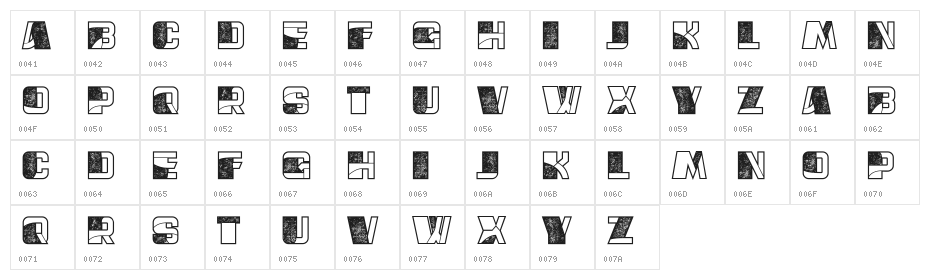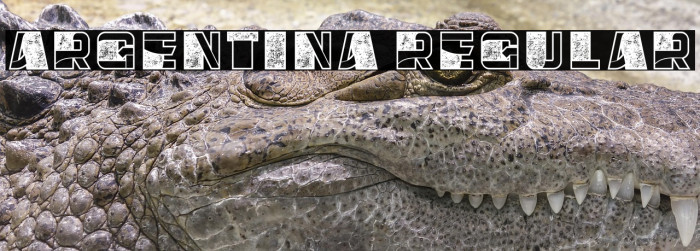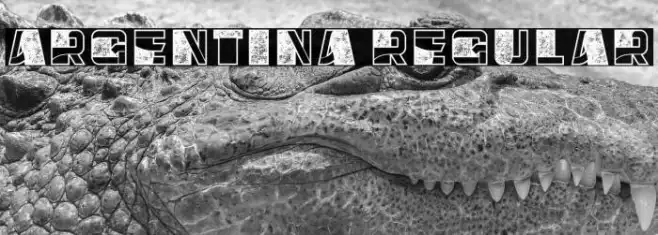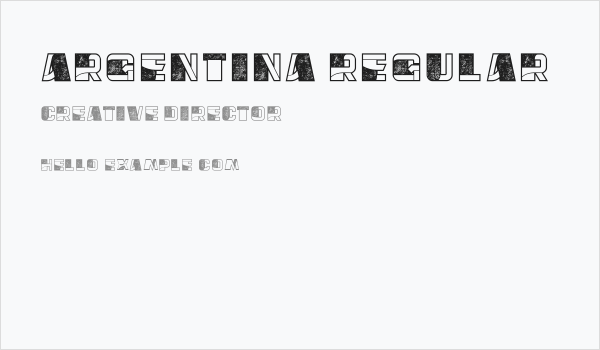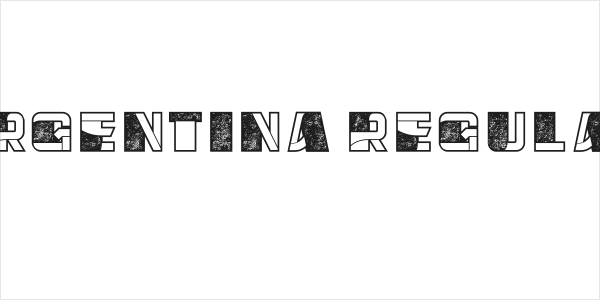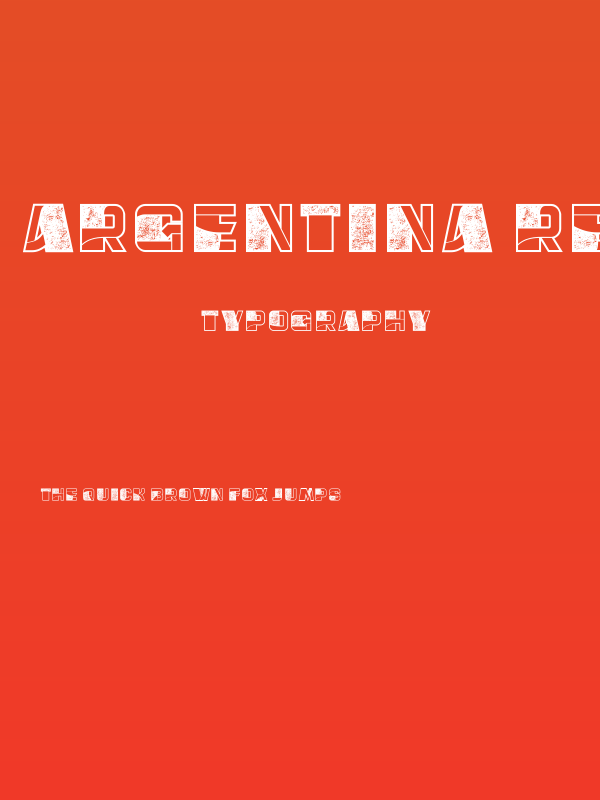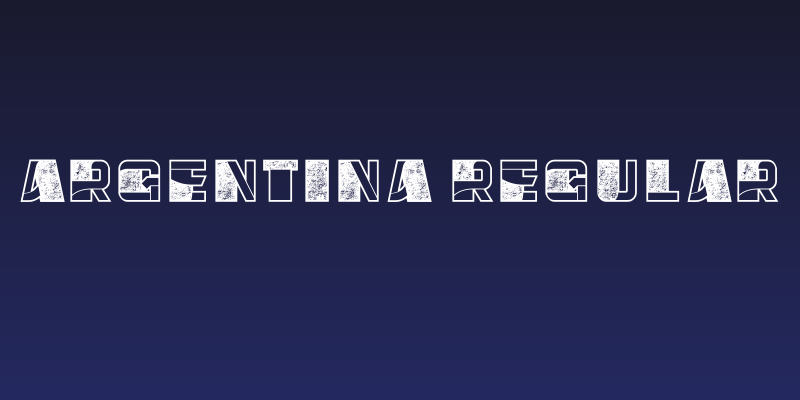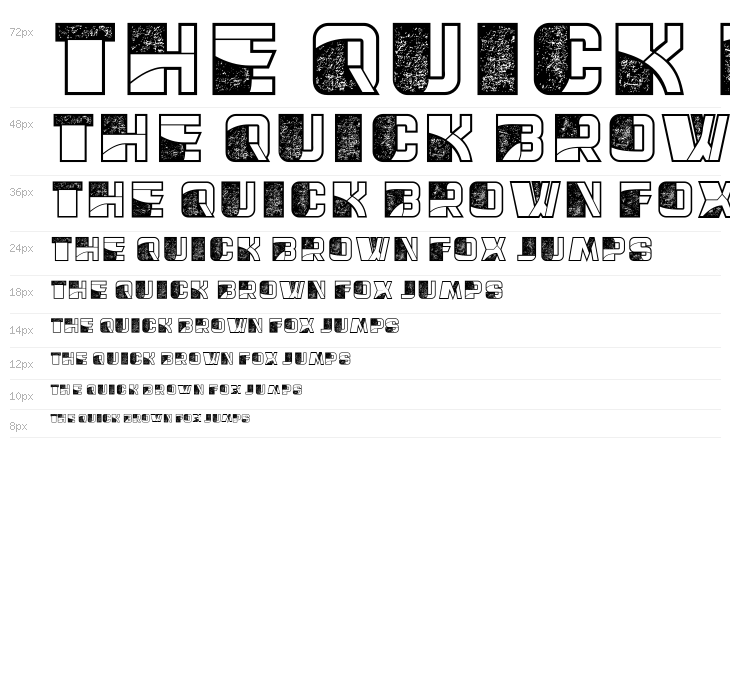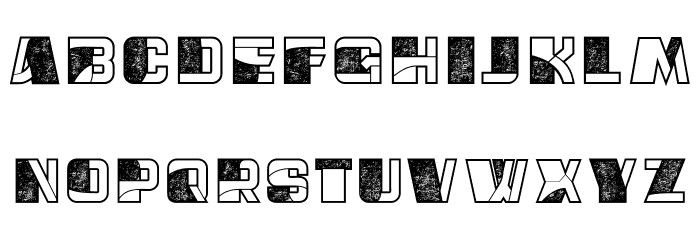
Argentina Regular Font
Argentina Regular Description
This font features a bold, decorative style with a unique distressed texture that gives it a vintage and rugged appearance. The uppercase letters are designed with a blocky, geometric form, incorporating both solid and outlined sections that create a dynamic visual effect. The distressed texture within the letters adds a sense of depth and character, making it stand out in any design. The overall style is eye-catching and suitable for projects that require a bold statement. The font's design is consistent across all characters, maintaining a cohesive look that is both modern and retro.